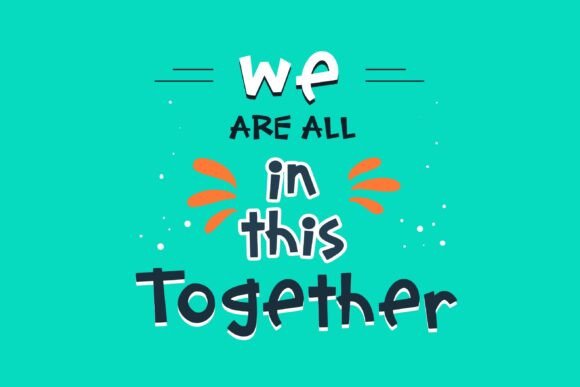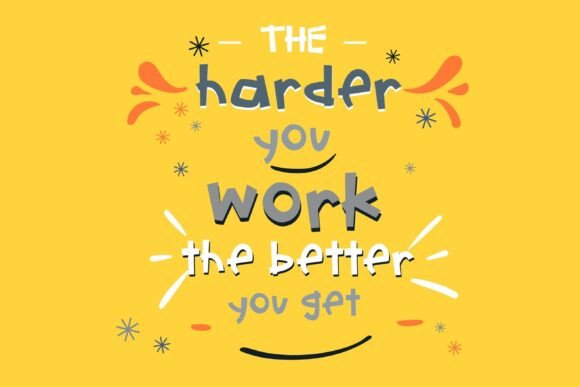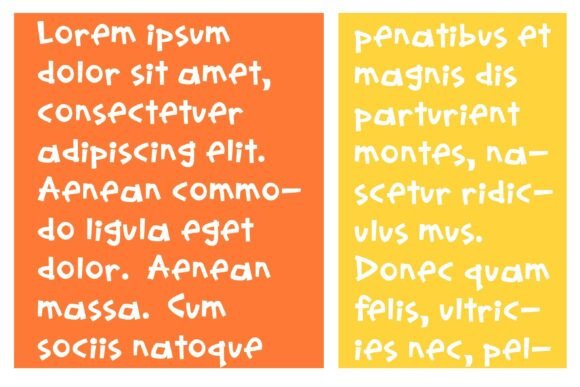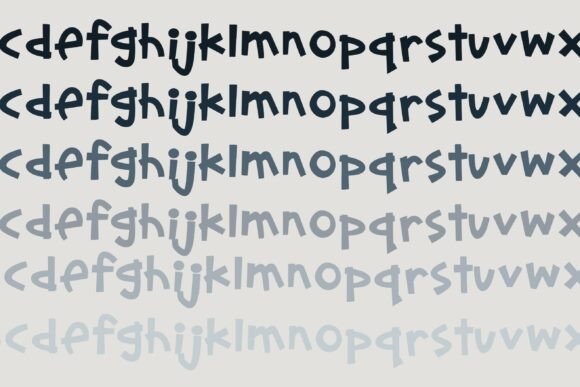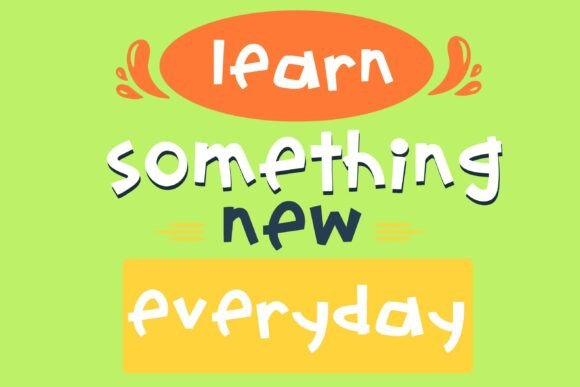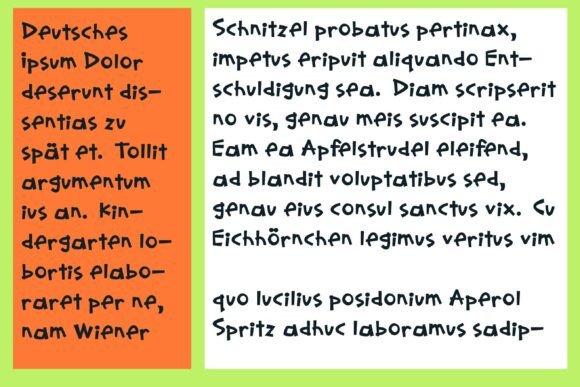
Introducing Amino Font: The Perfect Blend of Science and Whimsy
In the world of typography, fonts play a crucial role in conveying the tone and personality of a brand. For designers and crafters looking for a font that embodies a sense of scientific curiosity and playfulness, Amino Font is an excellent choice. This friendly display sans font is designed to capture the essence of a “scientific-and-spirited” soul, making it perfect for educational infographics, children’s branding, and STEM-focused identities.
The Unique Characteristics of Amino Font
Amino Font features thick, rounded letterforms that are uniquely characterized by rhythmic, hand-drawn imperfections. These imperfections give the font a soft, approachable personality that is both modern and engaging. The font’s structural weight is carefully balanced to bridge the gap between educational materials and modern children’s branding, making it an versatile choice for a wide range of design applications.
The Benefits of Using Amino Font
So, why choose Amino Font for your design projects? Here are just a few benefits of using this fantastic font:
- Approachable Personality: Amino Font has a warm and inviting personality that makes it perfect for designs that require a friendly tone.
- Vibrant Presence: The font’s bold and rounded letterforms make it perfect for high-impact designs that require a strong visual presence.
- Versatility: Amino Font is suitable for a wide range of design applications, from educational infographics to children’s branding and social media headers.
Ideal Use Cases for Amino Font
Amino Font is an excellent choice for designers and crafters working on projects that require a unique blend of science and whimsy. Here are some ideal use cases for this fantastic font:
- Independent STEM-focused Identities: Amino Font is perfect for creating logos and branding materials for STEM-focused businesses and organizations.
- Boutique Science Center Logos: The font’s scientific and playful personality makes it an excellent choice for science centers and museums.
- Creative Learning Materials: Amino Font is suitable for educational materials, such as textbooks, workbooks, and activity sheets.
- High-impact Social Media Headers: The font’s bold and vibrant presence makes it perfect for social media headers that require a strong visual impact.
Tips for Using Amino Font Effectively
To get the most out of Amino Font, here are some tips for using it effectively:
- Pair with Other Fonts: Amino Font works well when paired with other fonts that have a similar playful and scientific personality.
- Experiment with Colors: The font’s bold and rounded letterforms make it perfect for experimenting with bright and bold colors.
- Use for Headings and Titles: Amino Font is perfect for headings and titles that require a strong visual presence.
In conclusion, Amino Font is an excellent choice for designers and crafters looking for a font that embodies a sense of scientific curiosity and playfulness. With its unique characteristics, approachable personality, and vibrant presence, Amino Font is perfect for a wide range of design applications. Whether you’re working on a STEM-focused identity, a boutique science center logo, or a creative learning material, Amino Font is sure to impress.